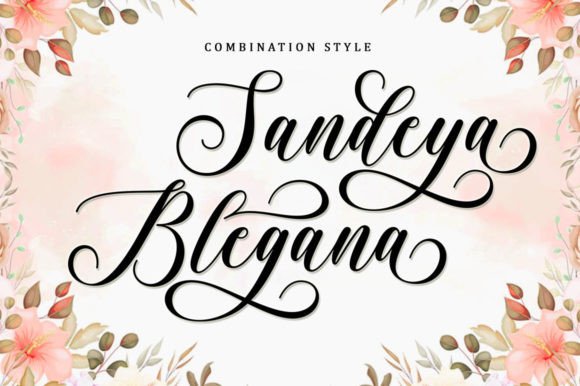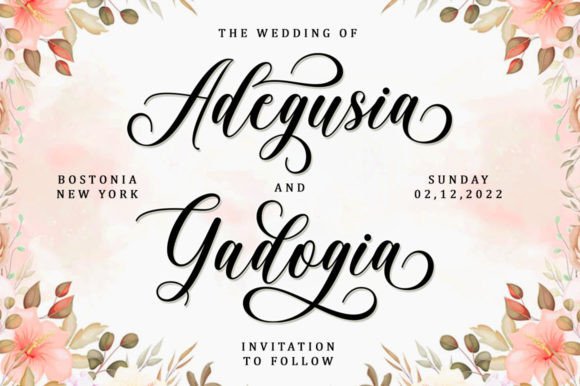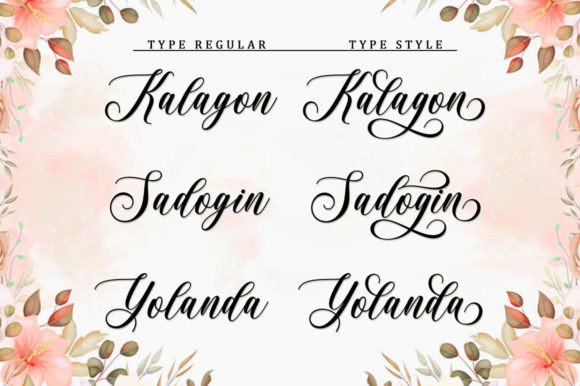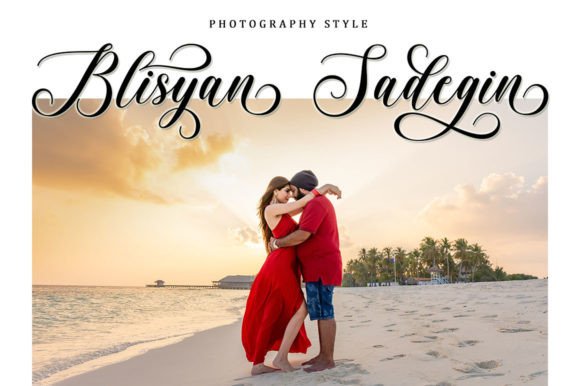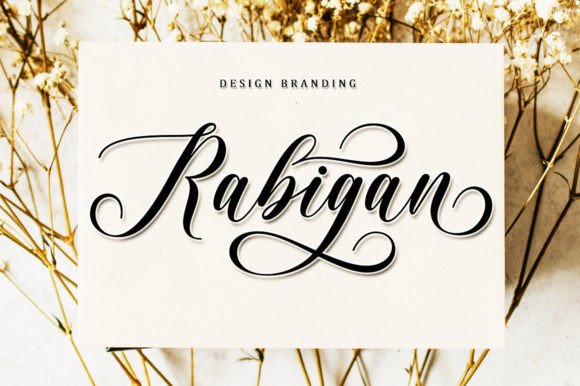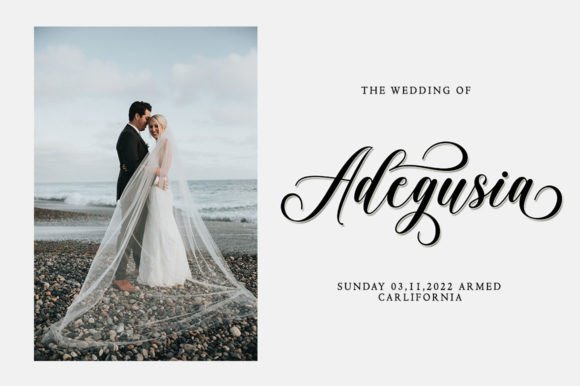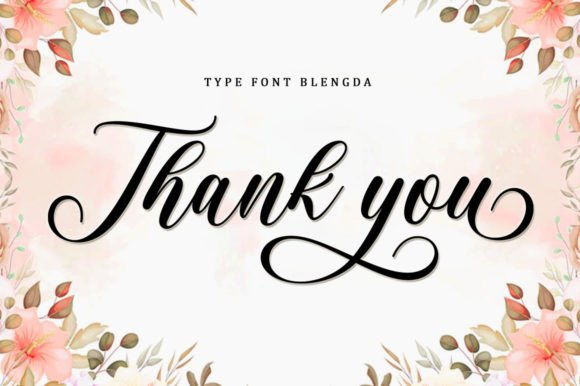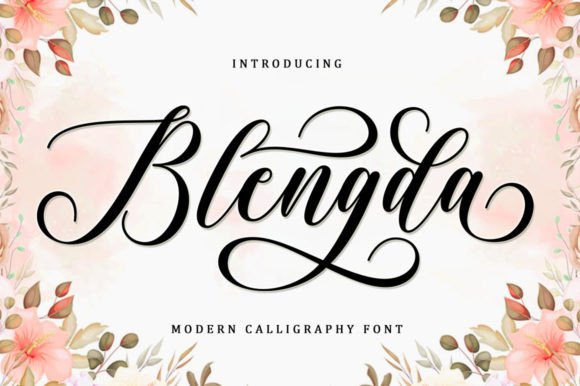
Blengda Font
A Flowing Handwritten Font with Elegant Touch
Blengda Font is a flowing handwritten typeface that brings an elegant and distinctive style to any design project. Its smooth curves and graceful strokes create a timeless aesthetic that fits beautifully with both modern and classic design themes. Whether you’re working on wedding invitations, branding, or social media graphics, this font adds a personalized, sophisticated touch that elevates your design.
Perfect for Branding and Logo Design
For branding and logo design, the Blengda Font is an ideal choice. Its unique handwritten style gives your logo or brand identity a personalized touch while maintaining a professional and elegant look. Whether you’re designing for a luxury brand, creative business, or personal logo, this font adds an artistic, memorable element that ensures your brand stands out. The timeless feel of this font makes it perfect for businesses looking to convey both creativity and professionalism.
Ideal for Wedding Invitations and Event Stationery
The Blengda Font is also perfect for wedding invitations and special event stationery. Its flowing handwritten style creates a romantic, elegant feel, making it ideal for creating save-the-dates, thank-you cards, or event programs. The beautiful cursive strokes ensure your invitations feel personal and charming, setting the tone for an unforgettable occasion. Whether it’s a formal wedding or a casual celebration, this font adds an air of sophistication and elegance to your designs.
Great for Greeting Cards and Quotes
For greeting cards and quote designs, the Blengda Font adds a distinct and artistic touch to your messages. Whether you’re creating birthday cards, holiday greetings, or motivational quotes, this font gives your designs an elegant and handwritten charm. Its timeless style makes it perfect for expressive typography, ensuring your messages are not only meaningful but also visually stunning. Add it to your collection to bring a unique and personalized touch to any occasion.
Perfect for Social Media and Digital Designs
For social media and digital content, the Blengda Font helps your posts stand out with a beautiful, fluid handwritten style. Whether you’re designing Instagram stories, Facebook ads, or Pinterest pins, this font adds a stylish and approachable element to your content. Its flowing letters ensure your message is legible while still maintaining a distinctive and elegant appeal. Perfect for inspirational quotes, business promotions, or event announcements, this font helps you create content that engages your audience with both creativity and sophistication.
Versatile and Legible
Despite its elegant handwritten script design, the Blengda Font remains legible and easy to use. Its well-spaced and clean strokes ensure that your text remains clear and readable, even for longer passages or small print sizes. Whether you’re using it for headlines, captions, or body text, this font provides the perfect balance of creativity and readability, making it suitable for various design applications, from print to digital media.
The Blengda Font is easy to use and integrates seamlessly into most design software. Whether you’re designing for branding, wedding invitations, greeting cards, or social media posts, this font ensures your designs look polished and elegant while maintaining a personal touch. Its versatility makes it perfect for both print and digital media, allowing you to use it across various projects with ease.
Add Elegance and Timeless Style to Your Designs with Blengda Font
If you’re looking for an elegant, flowing handwritten font to enhance your designs, the Blengda Font is the perfect choice. Whether you’re working on wedding invitations, branding, quotes, or social media content, this font brings a timeless, romantic touch to your work. Let the Blengda Font help you create memorable, elegant designs that leave a lasting impression.